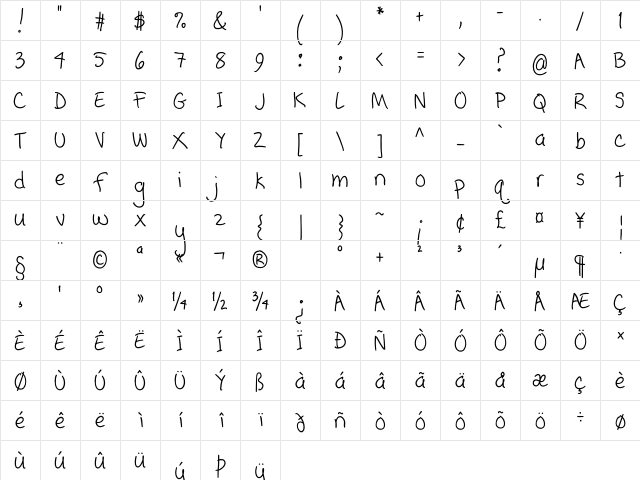
Complete Popcorn Mountain Cond Regular glyph index. Displaying only characters natively supported by Popcorn Mountain Cond Regular font.
Popcorn Mountain Cond is a composed and adaptable typeface that performs quietly and consistently across a wide range of design contexts. Its narrow stance lets it pack a punch even in space-constrained designs.